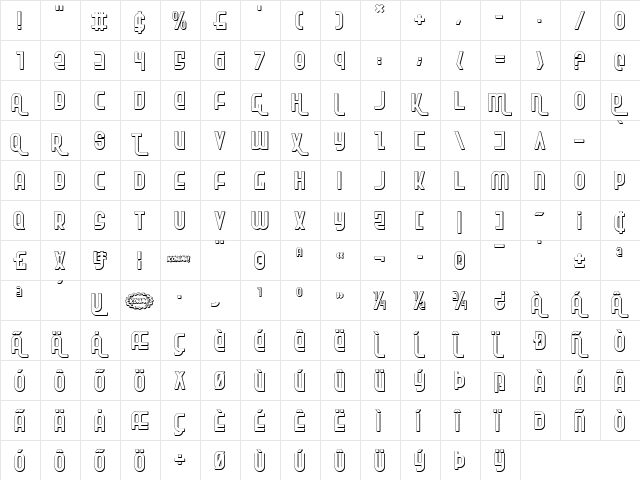
Ro'Ki'Kier Shadow Regular
Design Context for Ro'Ki'Kier Shadow Typeface
Ro'Ki'Kier Shadow is built around its visual character rather than neutral utility — its distinctive forms are designed to make an impression at display sizes.
Font Pairing: Pair with a clean neutral sans-serif for body copy to let Ro'Ki'Kier Shadow's character lead without overwhelming the composition.
Pro Tip: Treat Ro'Ki'Kier Shadow as the centrepiece of your typographic hierarchy. One strong heading set in a decorative face can carry an entire layout.